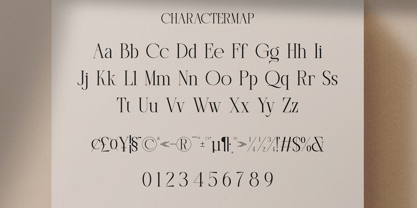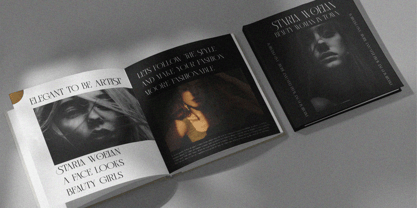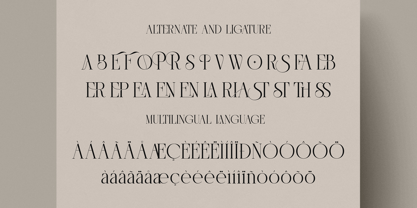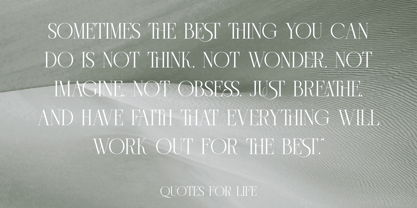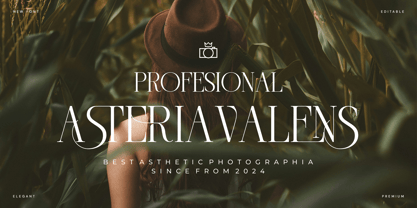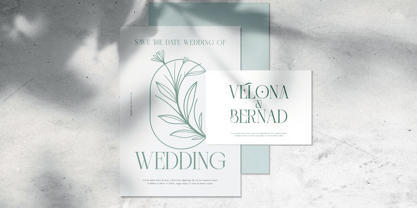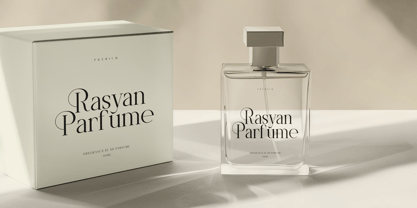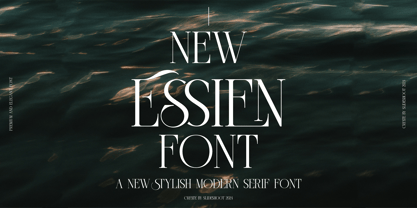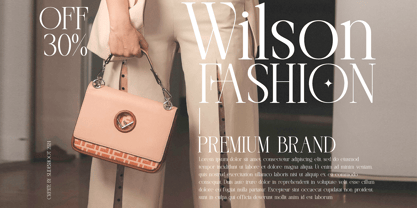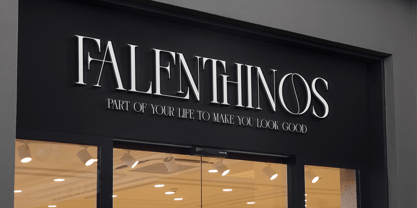
New Essien
by Slide Shoot
The New Essien Font Family was designed by Ahmad Riqi and published by Slide Shoot. New Essien contains 1 styles. More about this family
Want to add a balanced, refined, elegant and stylish touch to your design? Look no further than New Essien. It is perfect for combining with invitation card designs, company logos, movie titles, movie names, business cards, book titles, brand names and various other designs. New Essien Serif is a refined serif font that exudes sophistication and elegance. Its stylish alternations and ligatures make this font a perfect partner for any project.
Designers: Ahmad Riqi
Foundry: Slide Shoot